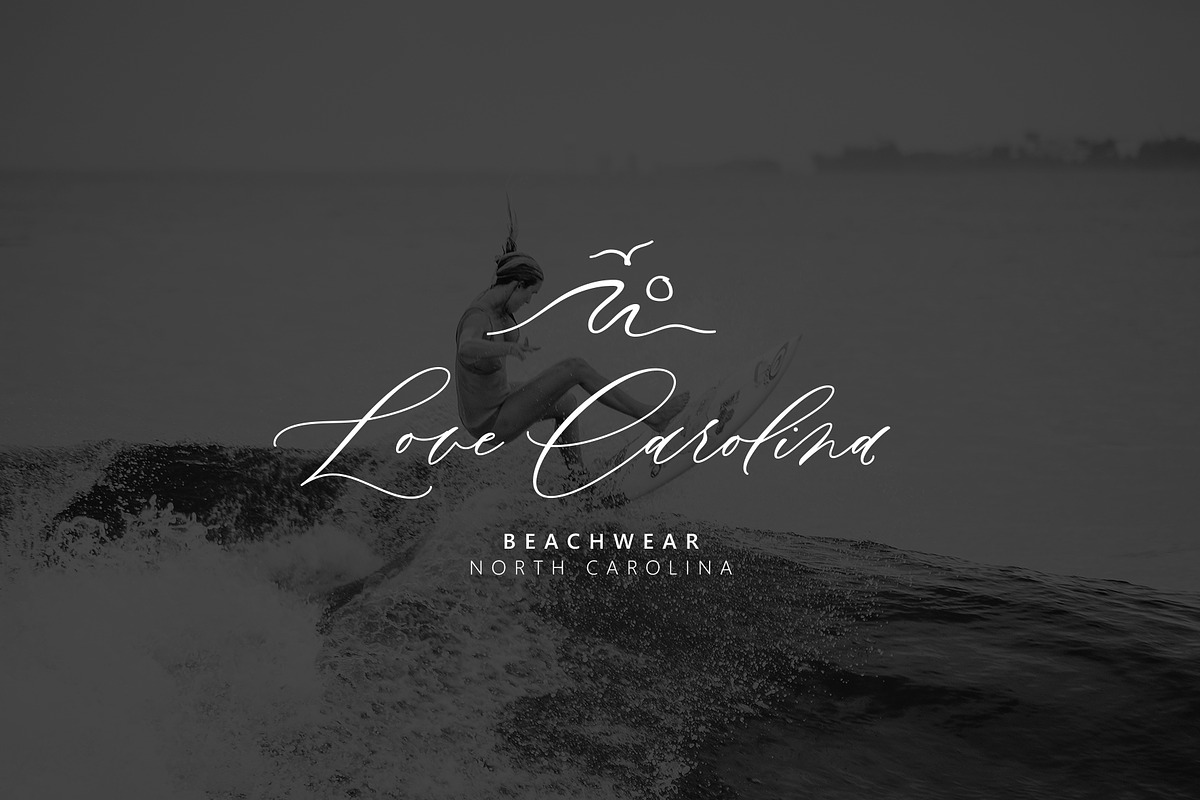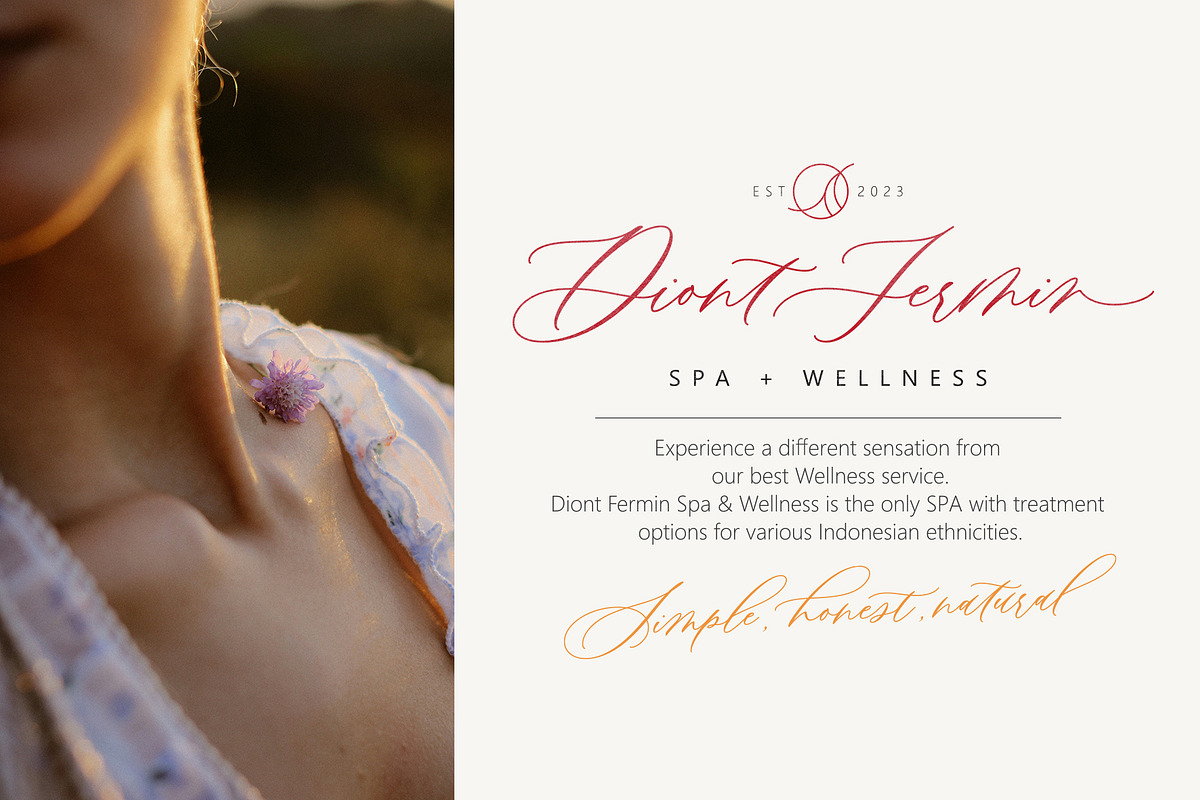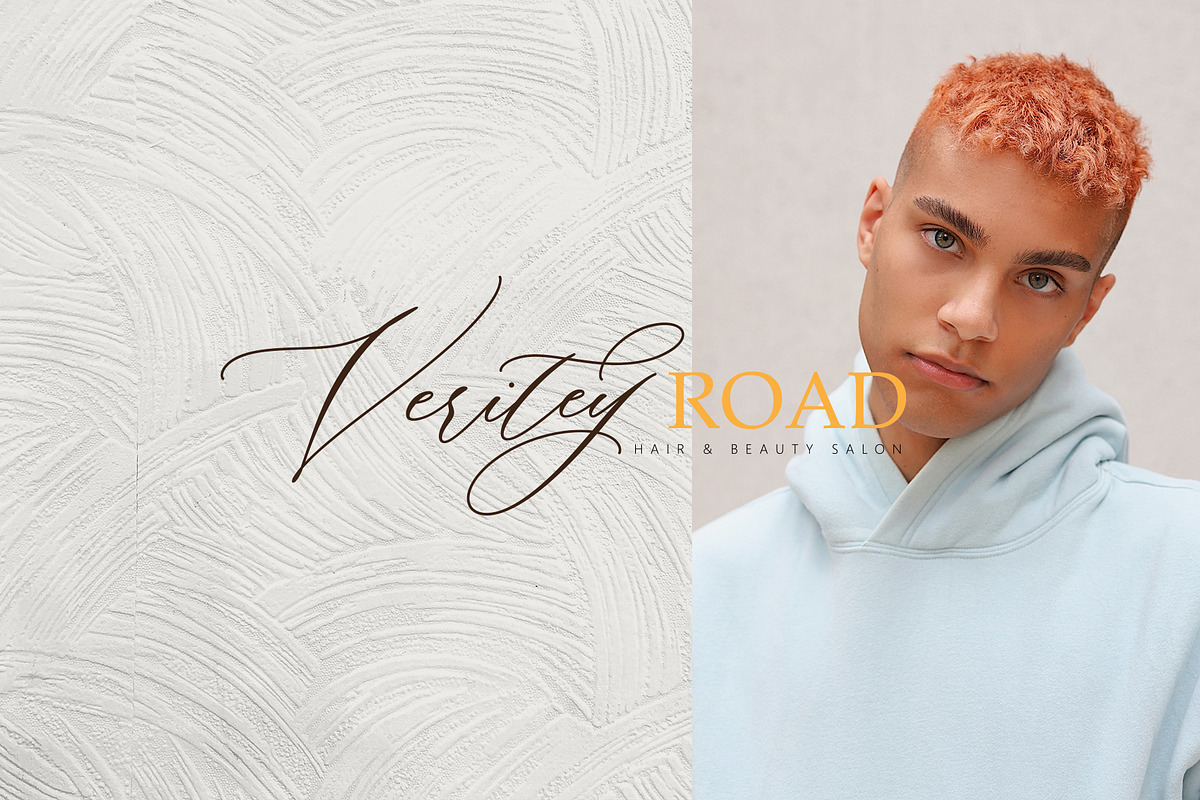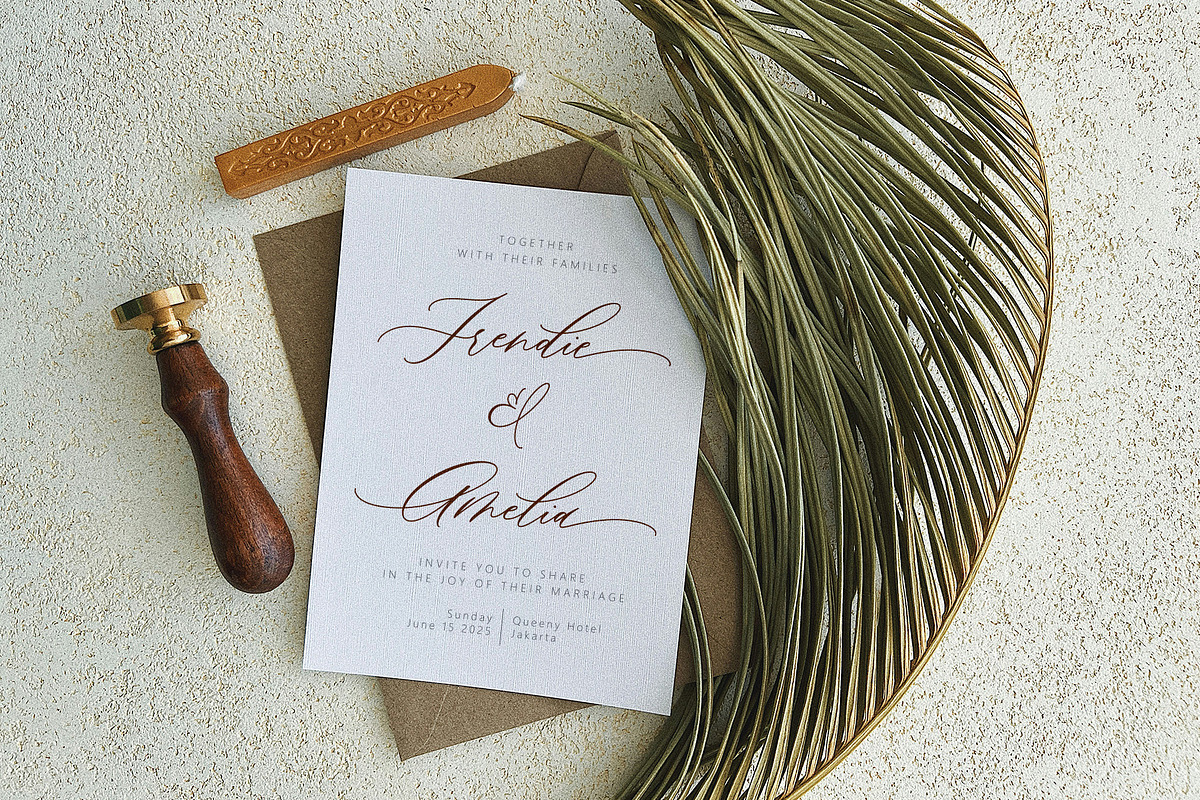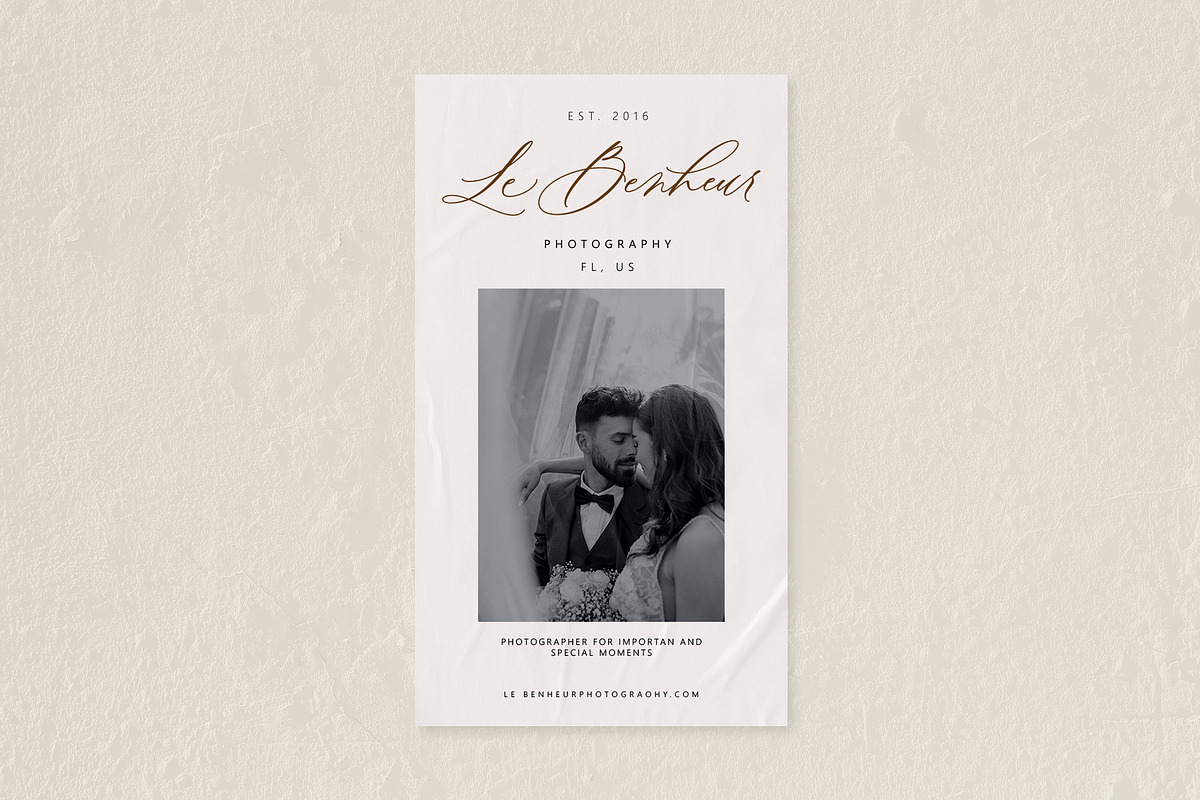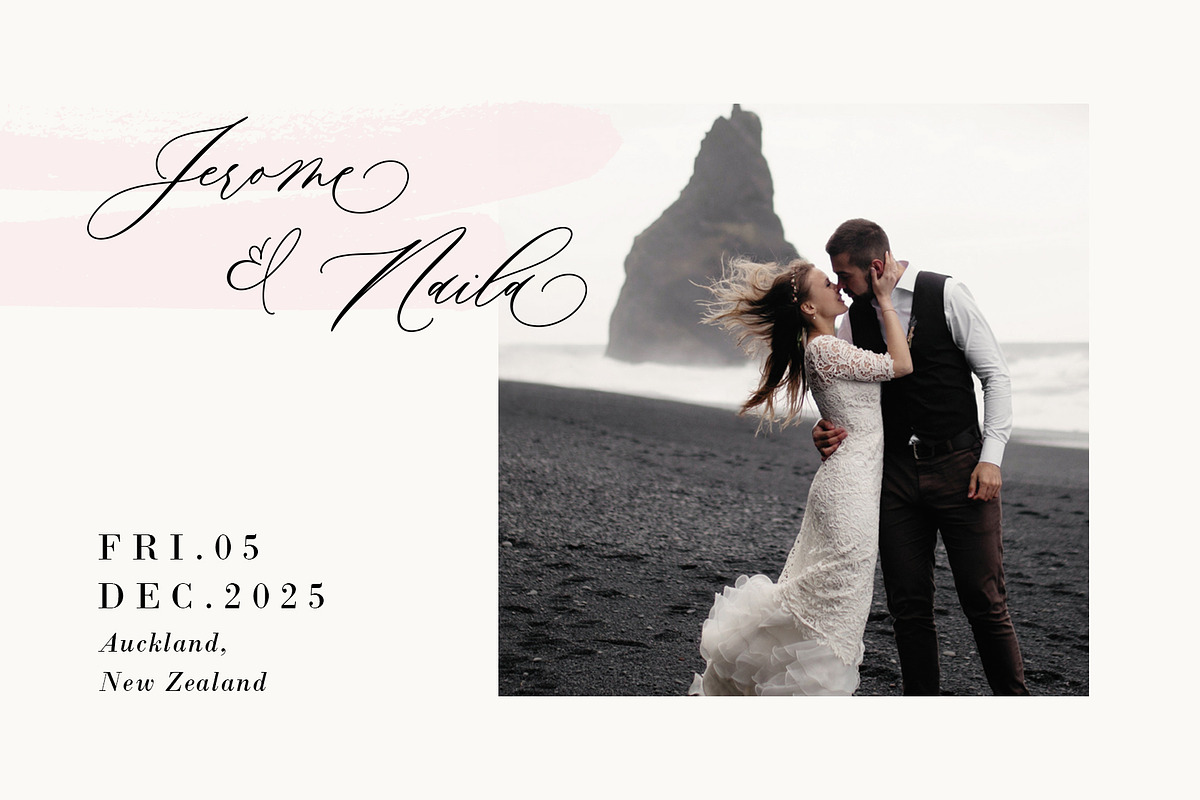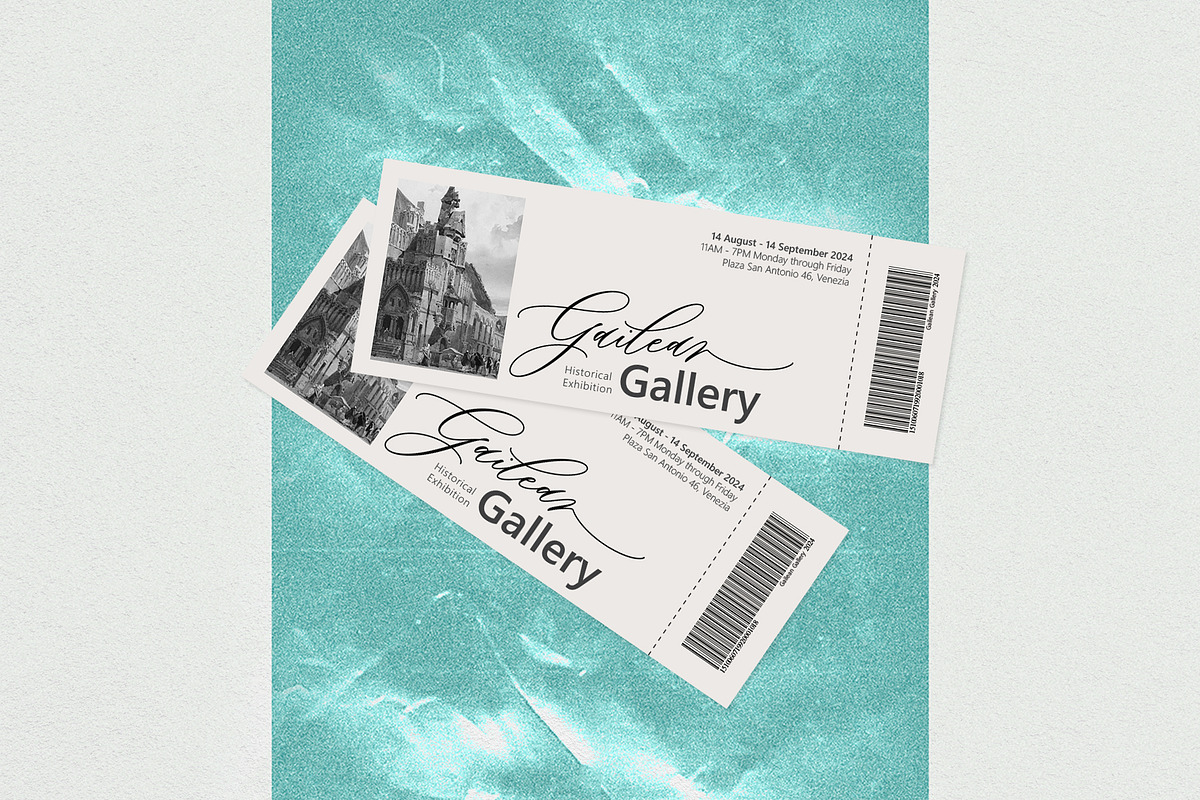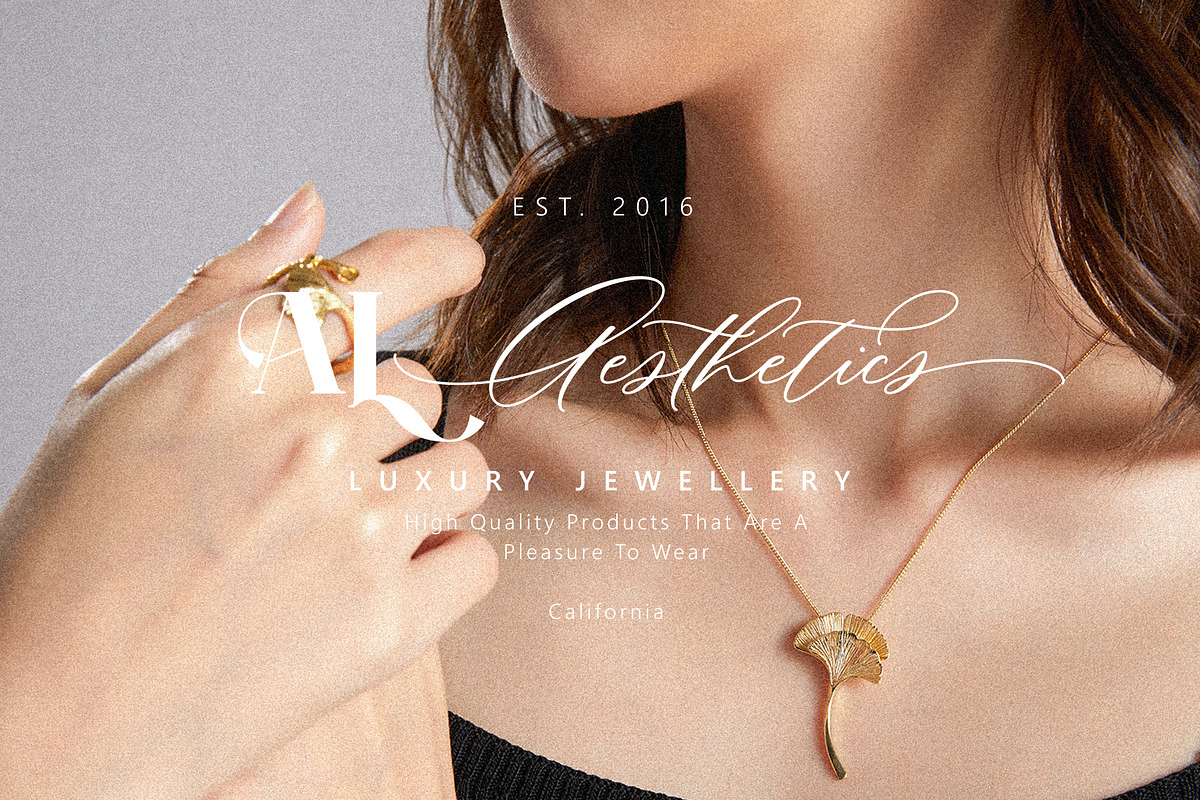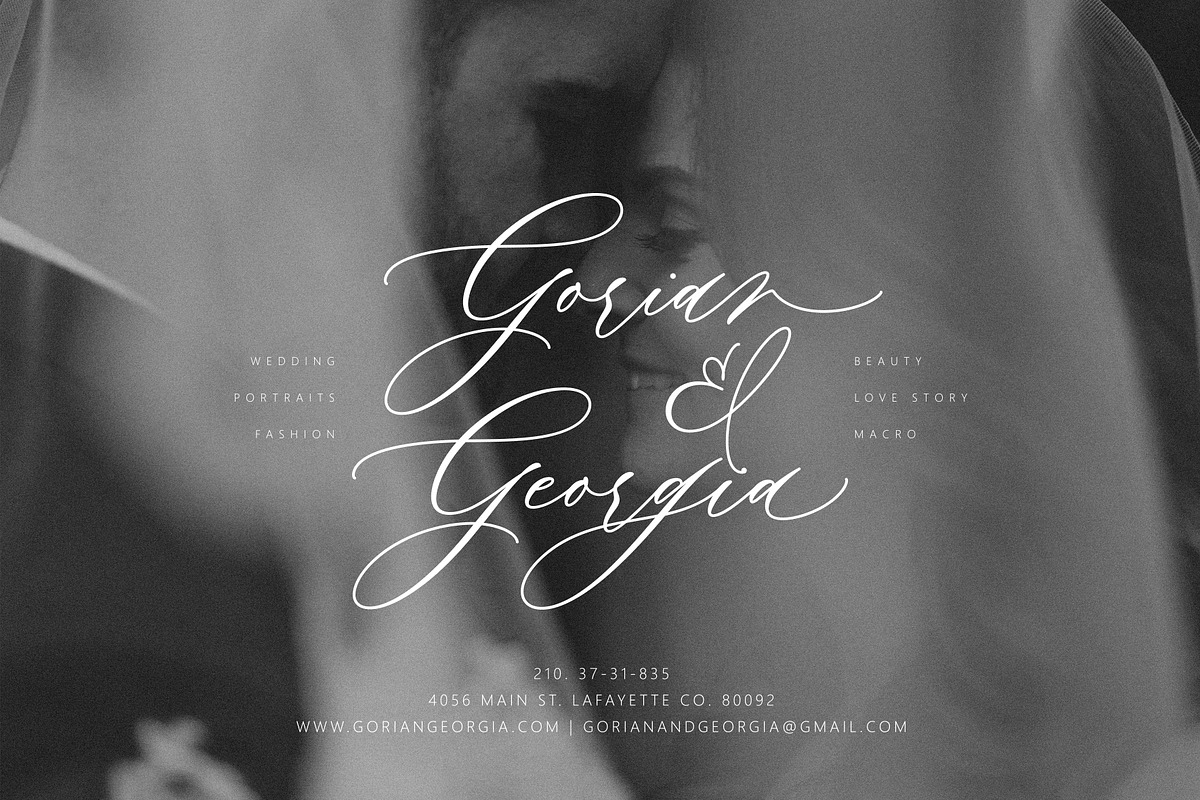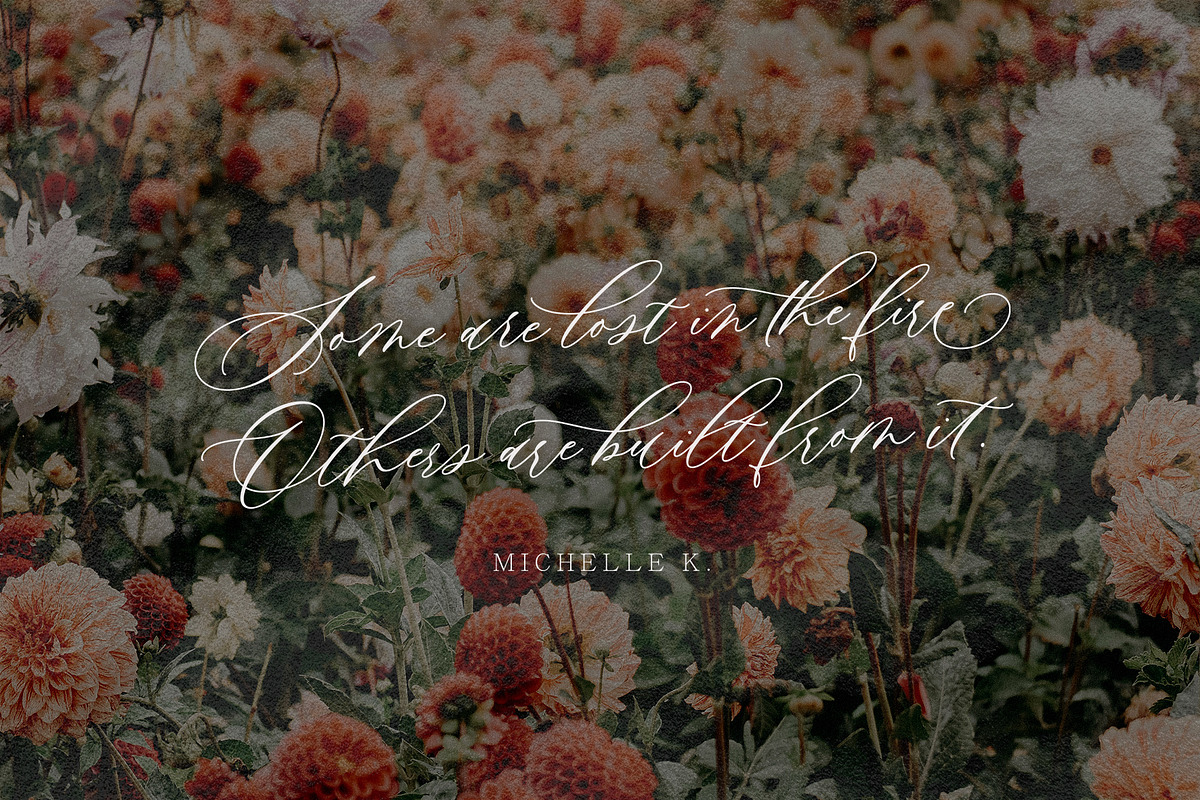
Evelin Bohemy
Evelin Bohemy is a beautiful Handwritten script font that is suitable for branding, wedding invitations, greeting cards, posters, name card, quotes, blog header, logo, fashion, apparel, letter, stationery and other projects.